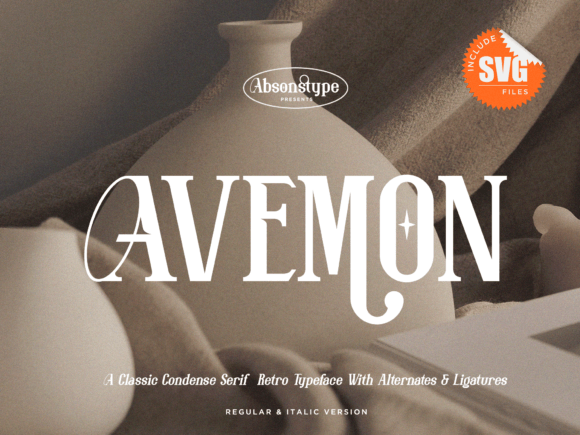
Introducing Avemon Font: The Elegant Classic Serif for Creative Designs
Are you looking for a font that exudes elegance and sophistication for your creative projects? Look no further than Avemon Font, a classic serif style that is sure to impress. With its balanced uppercase and lowercase letters, Avemon Font is perfect for a wide range of design applications, from headlines and logos to posters, packaging, and T-shirts.
What Makes Avemon Font Special?
Avemon Font boasts a range of features that make it an ideal choice for designers and crafters. Some of its key features include:
• Regular and Italic versions: Avemon Font comes in both regular and italic versions, allowing you to add variety to your designs.
• Character set: The font includes a comprehensive character set, covering A-Z uppercase and lowercase letters.
• Alternates: Avemon Font offers alternate characters, giving you more flexibility and creative control.
• Ligatures: The font features ligatures, which allow you to create beautiful, flowing text.
• Numerals & Punctuation: Avemon Font includes numerals and punctuation marks, making it a versatile choice for a wide range of design projects.
• Accented Characters: The font supports accented characters, allowing you to create designs for multiple languages.
• Multiple Languages Supported: Avemon Font is designed to work with multiple languages, making it a great choice for international design projects.
Design Applications for Avemon Font
Avemon Font is perfect for a wide range of design applications, including:
• Headlines: Create bold, eye-catching headlines with Avemon Font’s elegant serif style.
• Logos: Use Avemon Font to create professional, sophisticated logos that make a lasting impression.
• Posters: Add a touch of elegance to your posters with Avemon Font’s classic serif style.
• Packaging: Use Avemon Font to create eye-catching packaging designs that stand out on store shelves.
• T-shirts: Create stylish, professional-looking T-shirt designs with Avemon Font.
Avemon Font is a versatile, elegant classic serif font that is perfect for a wide range of design applications. With its balanced uppercase and lowercase letters, alternate characters, ligatures, and support for multiple languages, Avemon Font is an ideal choice for designers and crafters. Whether you’re creating headlines, logos, posters, packaging, or T-shirts, Avemon Font is sure to impress.